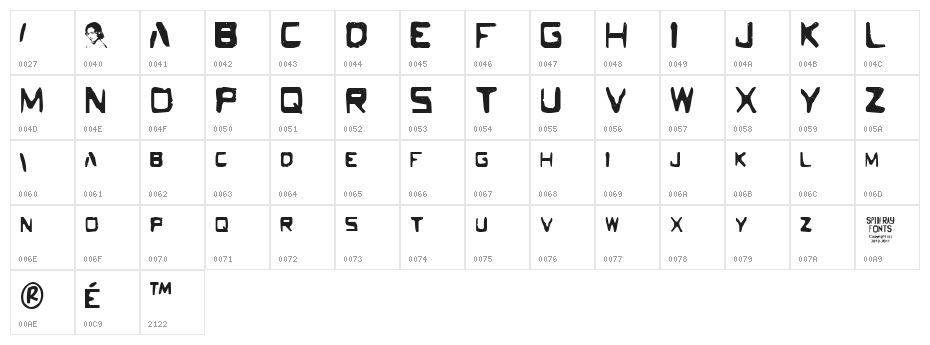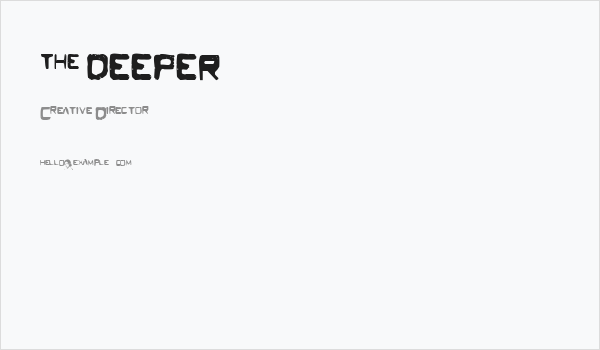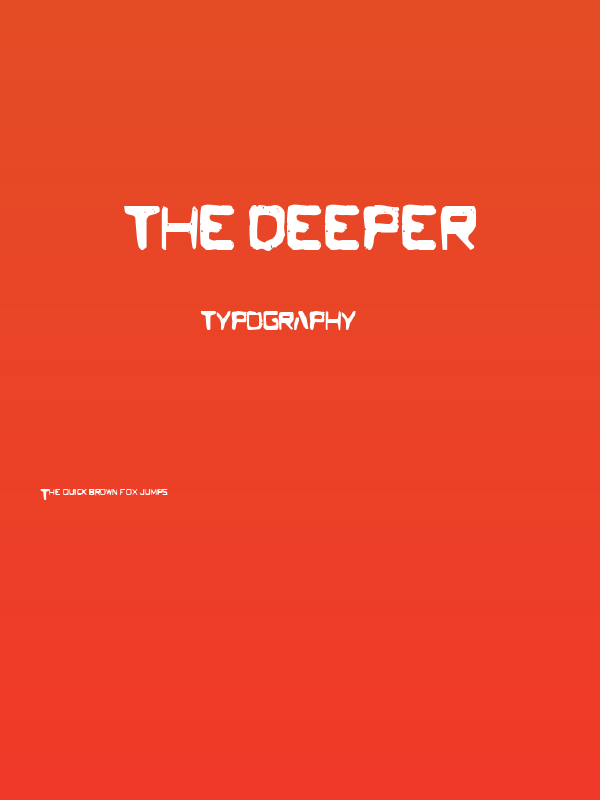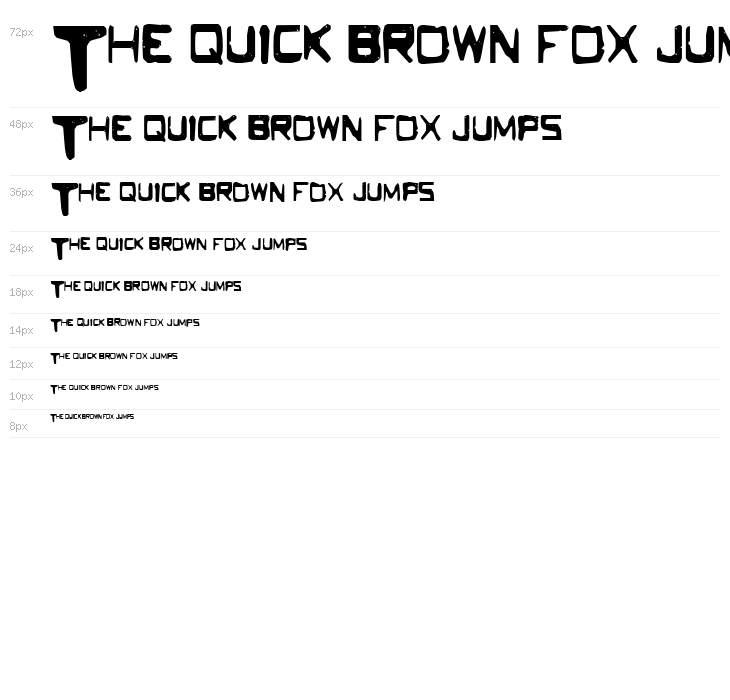
the DEEPER Font
the DEEPER Description
This font features a bold and rugged design with a distressed, grunge-like appearance. The uppercase letters are characterized by uneven edges and a slightly eroded texture, giving them a raw and industrial feel. The strokes are thick and substantial, providing a strong visual impact. The font maintains a consistent weight throughout, with a slight variation in the width of certain characters, adding to its unique style. The overall look is modern yet edgy, making it suitable for projects that require a bold statement.
| Overall Style | Modern, Edgy |
| Proposed Projects | Ideal for use in posters, album covers, branding for edgy products, or any design that requires a strong, impactful typeface. |